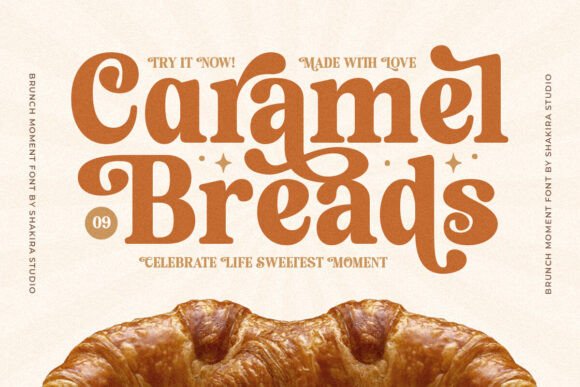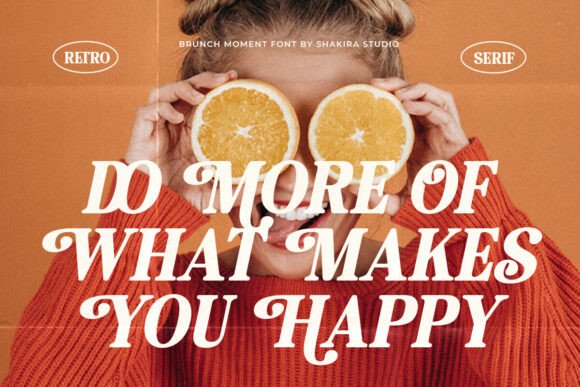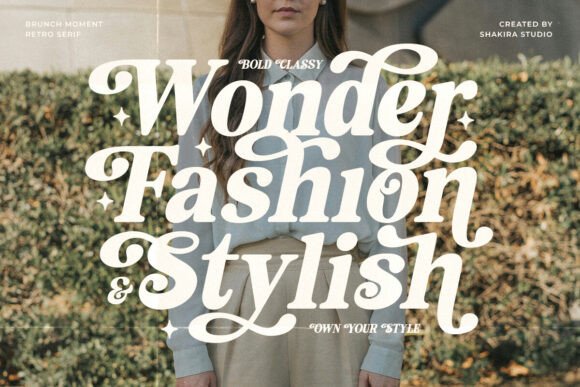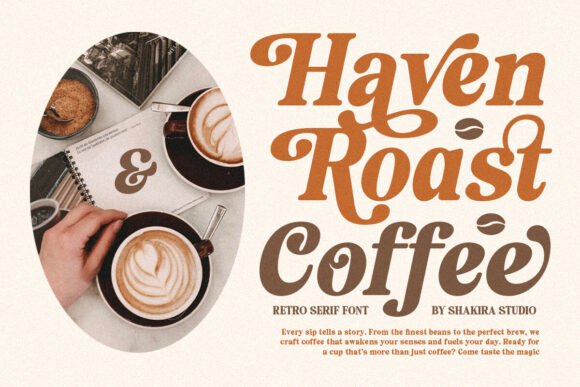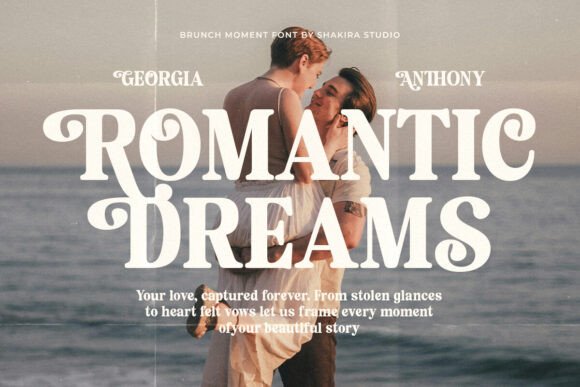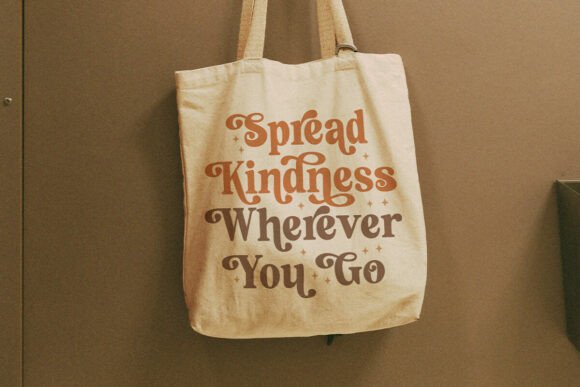
Introduction to Brunch Moment Font
Brunch Moment is a luxurious retro display serif font available in regular and italic styles.
It features elegant alternates and stylish ligatures, making it perfect for branding, editorial designs, social media, packaging, and more Its timeless charm adds sophistication to any project.
Key Features of Brunch Moment Font
Why Choose Brunch Moment Font?
Brunch Moment Font offers exceptional quality and versatility, making it a valuable addition to your design toolkit. Whether you’re creating for personal projects or commercial use, Brunch Moment Font delivers professional results.